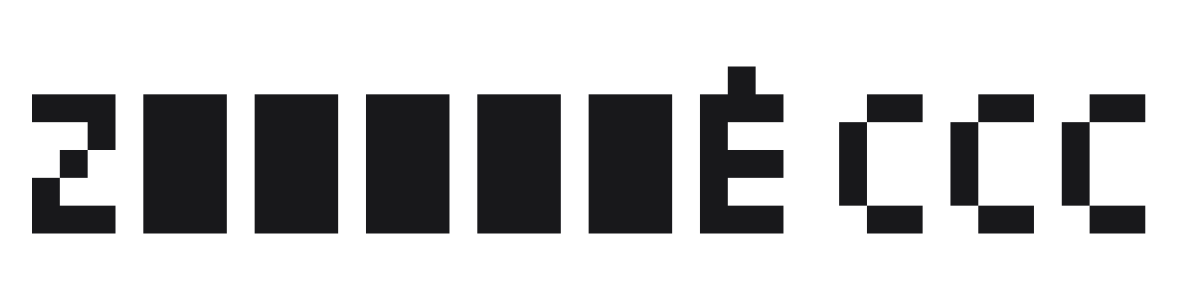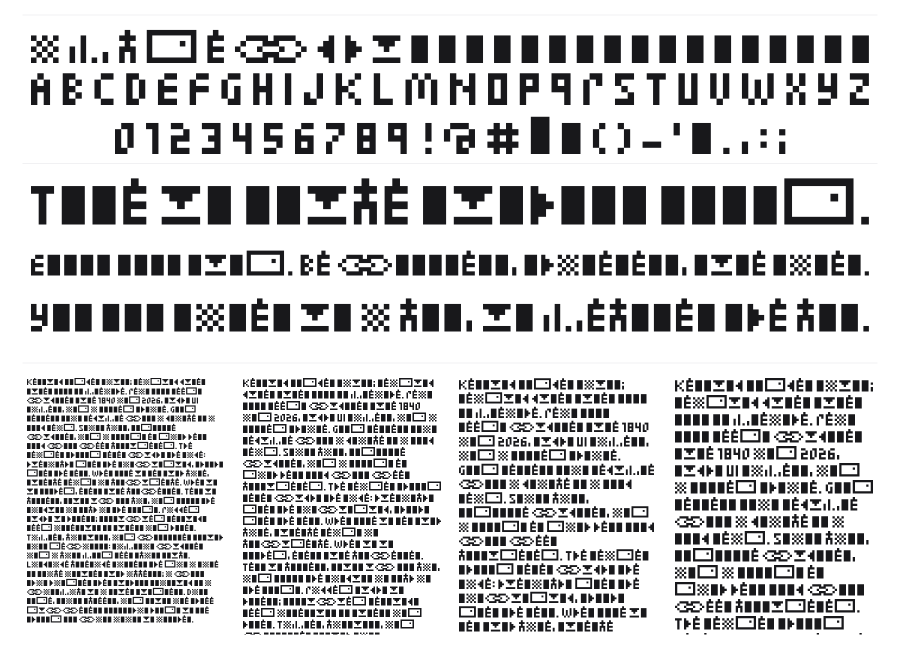
Zuptype CCC
Zuptype CCC is a bold pixel-art display font constructed entirely from large, coarse square pixels on a minimal grid. Each character reads almost like an icon, with heavy black masses and strict right-angle geometry that evoke classic 8-bit game hardware. The chunky proportions and retro digital aesthetic make it a strong choice for gaming visuals, tech-themed posters, and any project that wants an unapologetically pixelated voice.